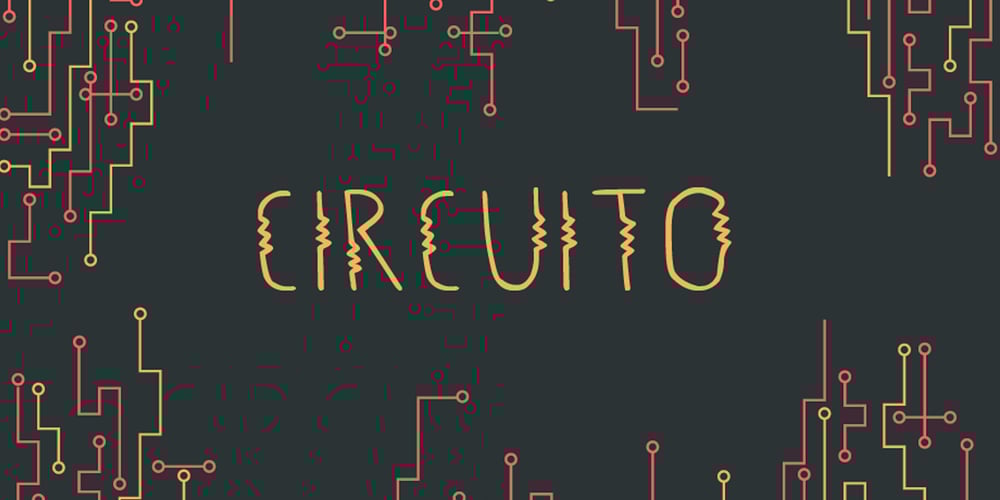
Circuito
Circuito font
Circuito Font Family was designed by Katherin Funez and published by Katherin Funez. Circuito contains 1 styles and family package options. Looking for a font that give you an electrifying feeling? Circuito is a fun display font that can be used in your projects to give some character and style to your design. Inspired by the visual representation of electrical circuits, Circuito is the font that is energetic, happy and daring.